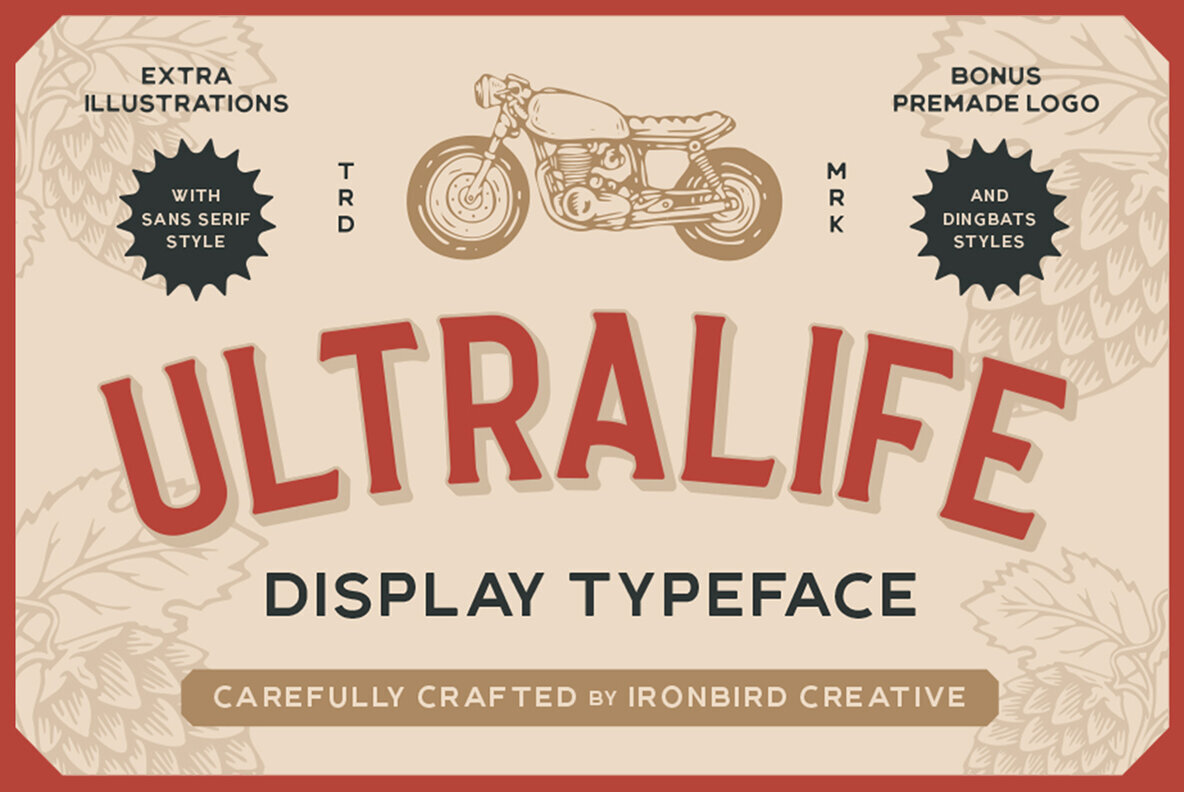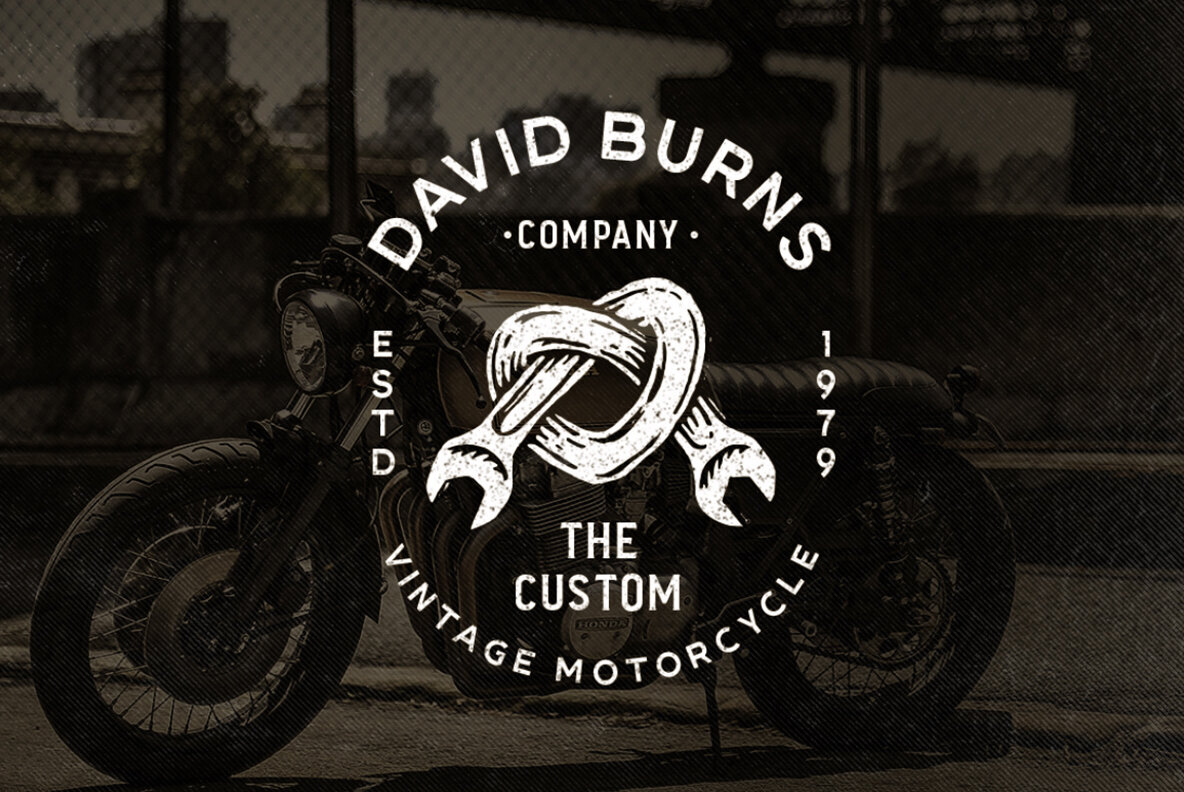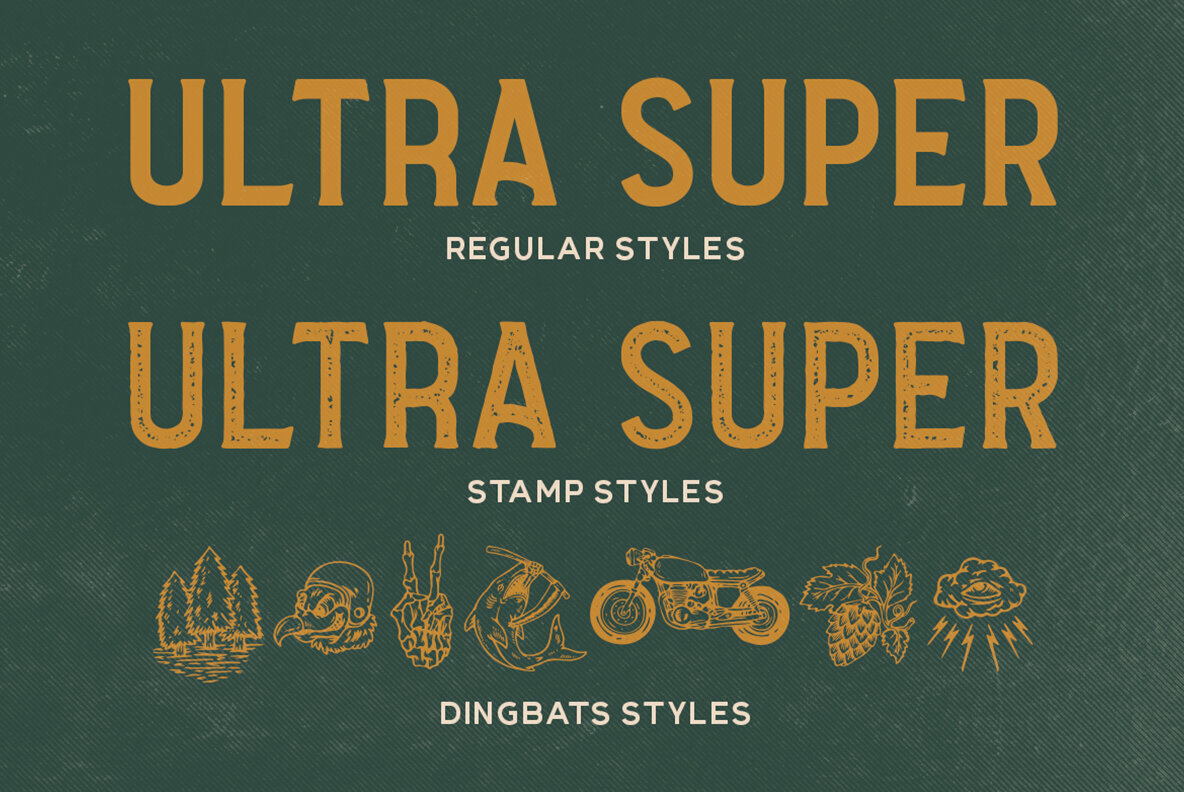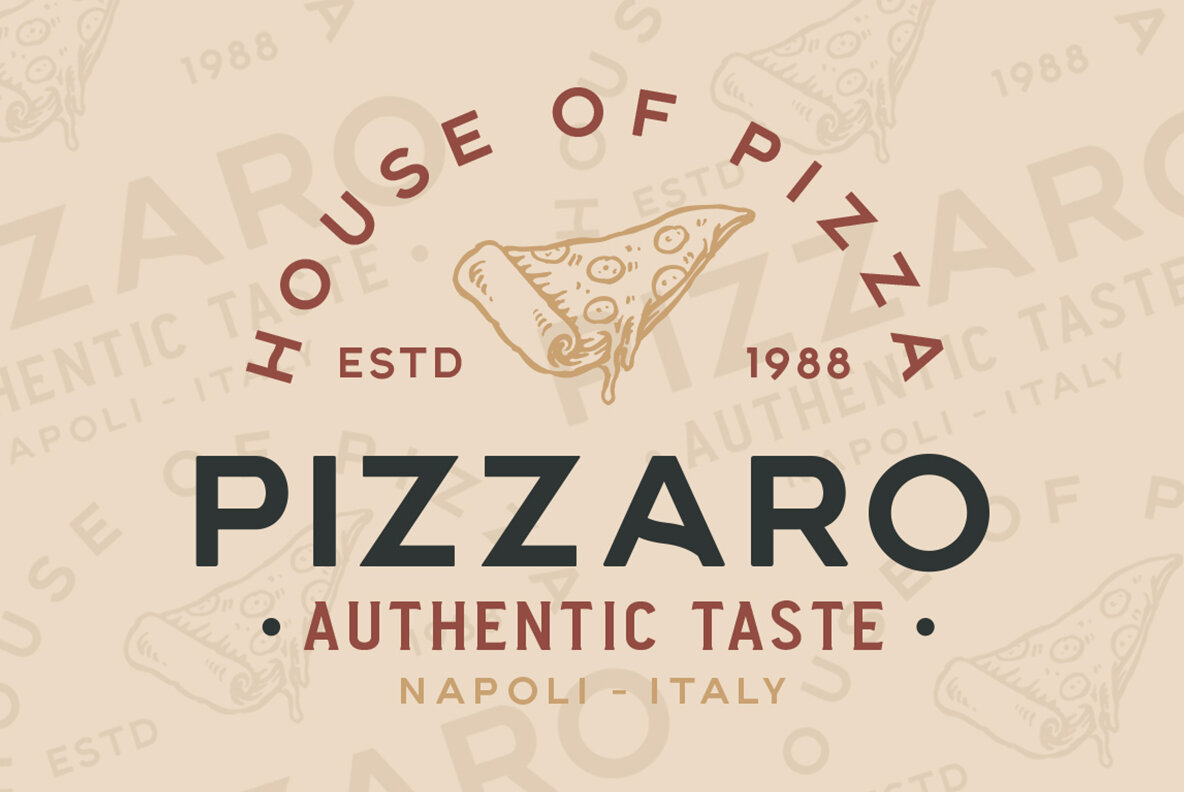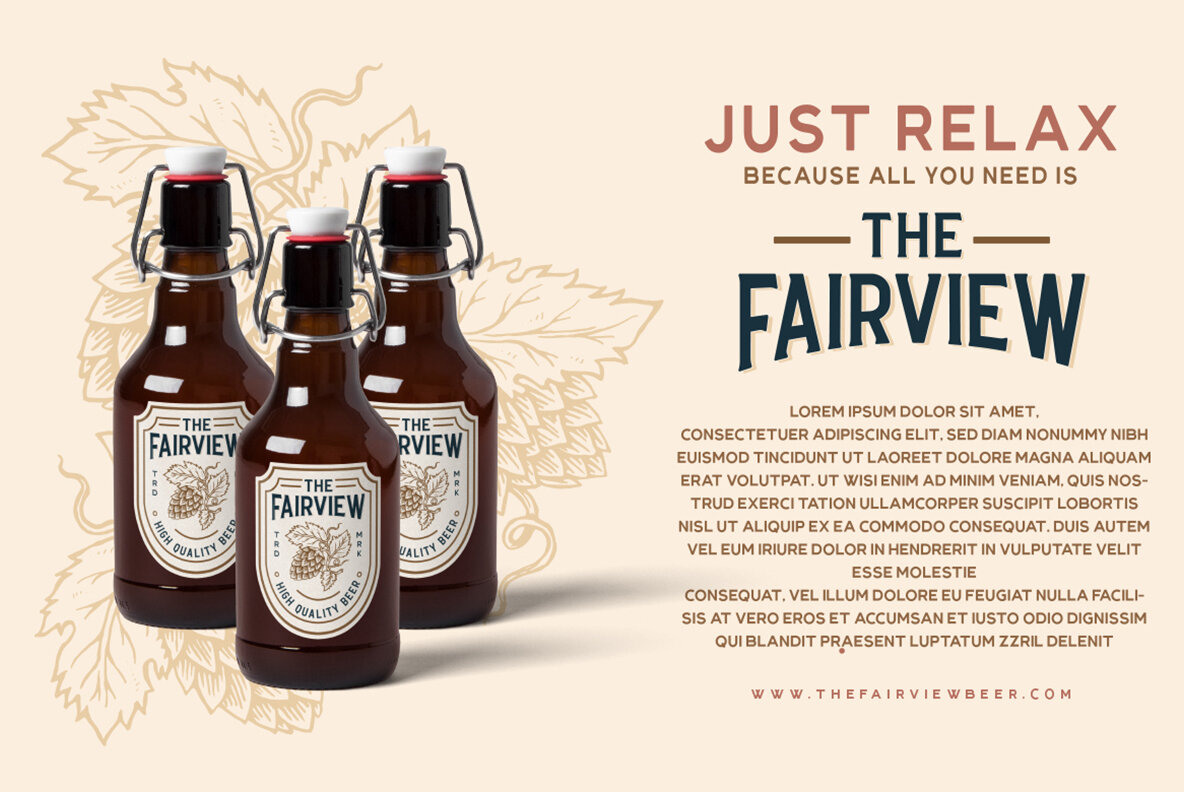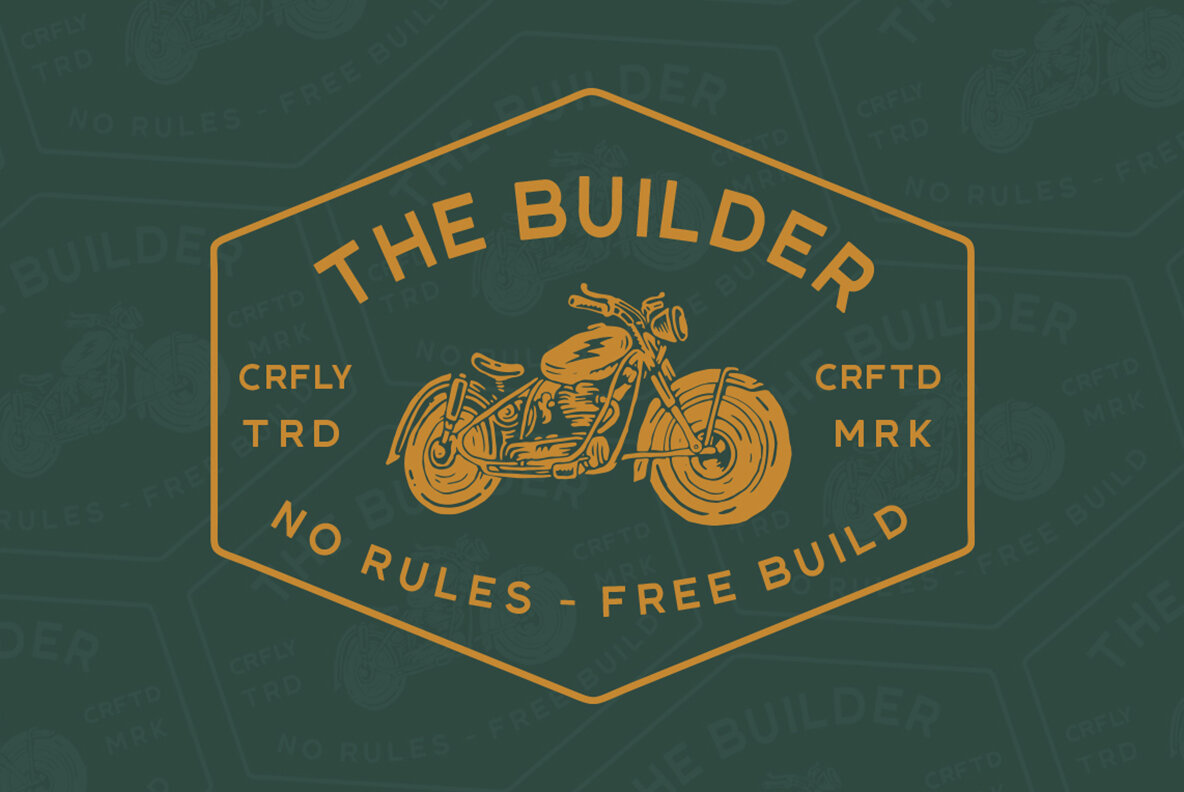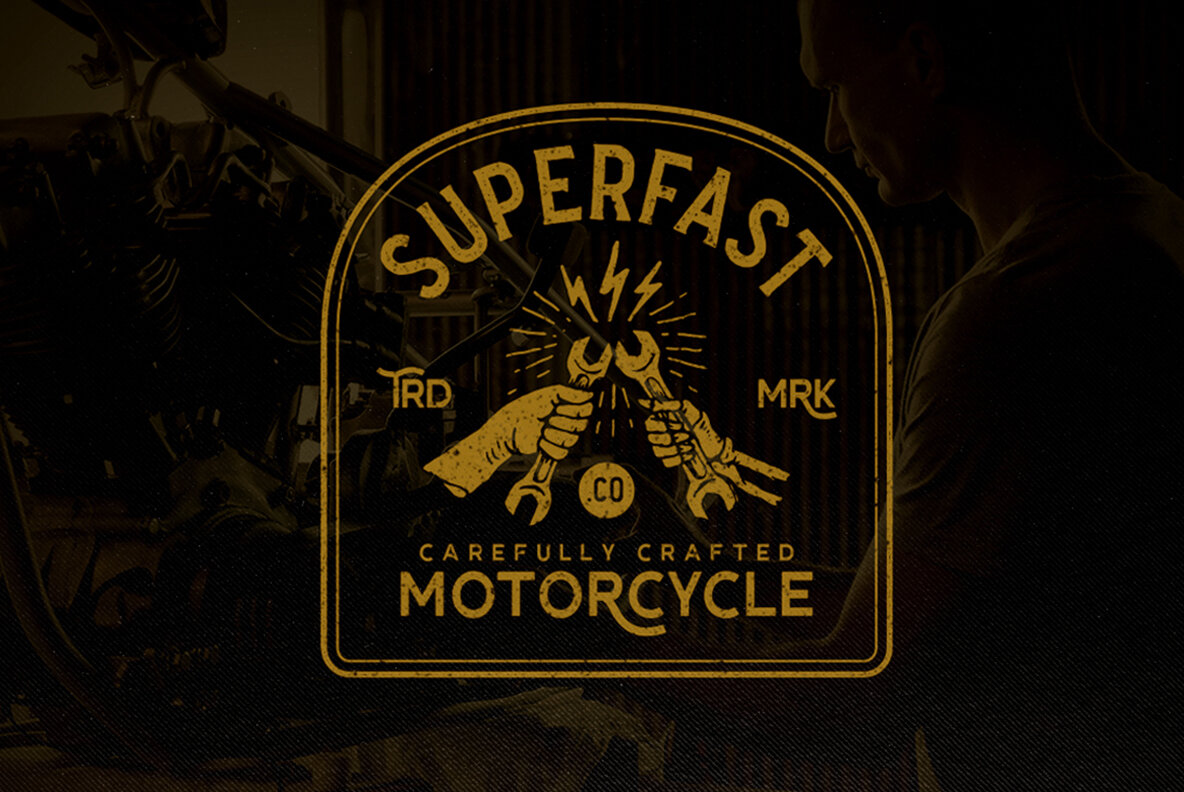
Ultralife Font
Ultralife Regular
Ultralife Sans Regular
Ultralife Dingbats
Ultralife Sans Stamp
Ultralife Stamp
Ultralife is a display typeface family designed for versatility and impact. Drawing on Clean and Stamp styles in both its Serif and Sans options, this set offers a practical toolkit for graphic designers seeking a typeface that accommodates both contemporary and vintage aesthetics. The inclusion of Ultralife Dingbats expands its creative range, integrating functional symbols into your visual language. Well-suited for projects ranging from logotypes and apparel to invitations and advertising, Ultralife adapts easily to various concepts and scales. Accompanying free illustrations and a logo pack provide helpful resources, offering added value for designers working to establish strong brand identities or create cohesive packaging and promotional materials. The broad character support—including multilingual options, numbers, symbols, and alternates—streamlines typography for a diverse digital audience.Ultralife: Display Typeface Family for Modern and Vintage Graphics